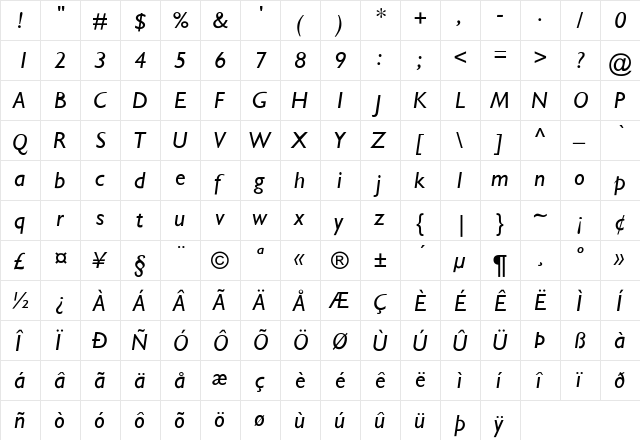
Stimmell-Italic Regular Font Preview
Stimmell-Italic Regular
Stimmell-Italic Regular Font Details
Design Context for Stimmell-Italic Typeface
Stimmell-Italic is a composed and adaptable typeface that performs quietly and consistently across a wide range of design contexts. The slanted form adds forward momentum and visual energy.
Pro Tip: Try Stimmell-Italic for annotation and caption copy alongside an upright companion — the contrast in angle creates a dynamic but ordered typographic system.